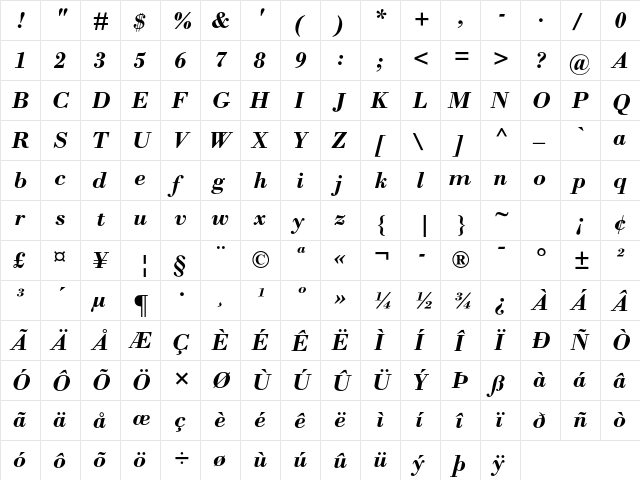
Bodoni MT Std Bold Italic Font Preview
Bodoni MT Std Bold Italic
Design Context for Bodoni MT Std Typeface
Bodoni MT Std offers clean, dependable letterforms without strong stylistic allegiance, making it a practical choice for designers who need flexibility. The slanted form adds forward momentum and visual energy. Its bold stroke weight gives it real presence on the page.
Pro Tip: Use Bodoni MT Std for emphasis, pull quotes, and subheadings where its slanted energy can add rhythm to the layout.